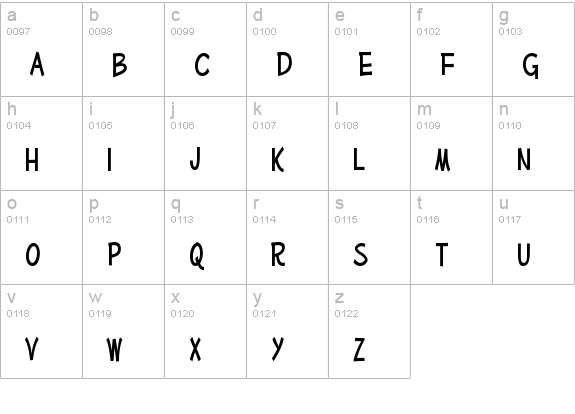
Mufferaw Cnd Font Details
Mufferaw Cnd is a charming and versatile font that exudes a classic yet modern appeal. With its unique blend of vintage elements and contemporary flair, this font is perfect for a wide range of design projects. Whether you're creating a retro poster, a stylish logo, or eye-catching packaging, Mufferaw Cnd will add a touch of personality and sophistication to your work. The best part? Mufferaw Cnd is absolutely free to download at FontsMarket.com! This means you can easily access this amazing font and use it in your projects without any cost. Don't miss out on this opportunity to enhance your designs with the timeless elegance of Mufferaw Cnd. Download it now and let your creativity soar!